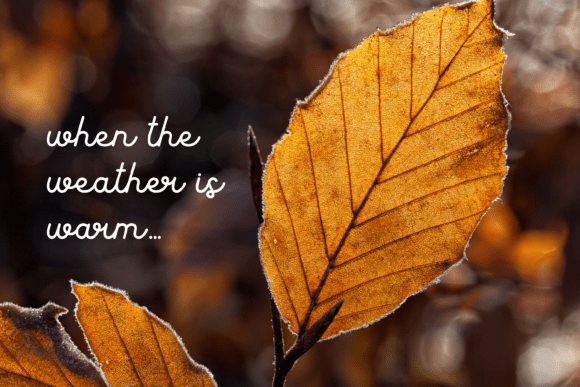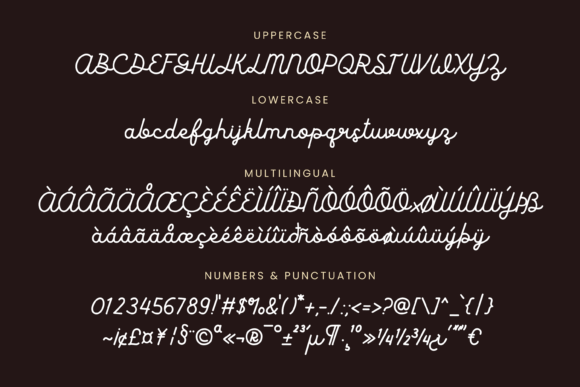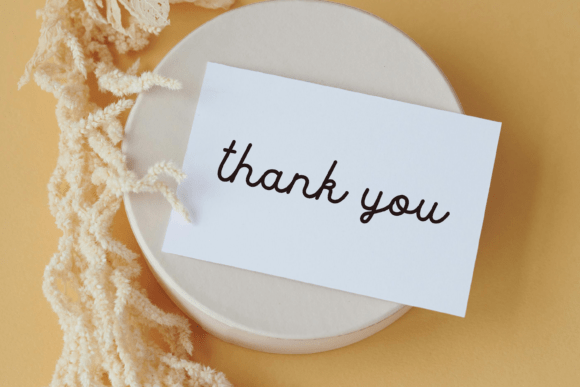
Discover the Charm of Hari Kamis Font: Elevate Your Design with a Breezy, Casual Script
In the world of typography, few fonts manage to capture the essence of a warm, relaxing atmosphere as effortlessly as the Hari Kamis font. This beautiful, casual script typeface is designed to evoke the feeling of a serene sunset, bringing a sense of calm and approachability to any design project. Whether you’re a designer looking for the perfect font for your lifestyle blog, a photographer seeking a stylish overlay for your travel photos, or a crafty entrepreneur aiming to create a warm and inviting brand identity, Hari Kamis is an excellent choice.
The Characteristics of Hari Kamis Font
So, what makes Hari Kamis font stand out from the crowd? For starters, its connected, monolinear strokes give it a fluid, dynamic feel that’s reminiscent of a quick, stylish signature or an informal note. Each glyph in the Hari Kamis font is crafted with a friendly, unpretentious flow that makes it feel incredibly accessible and modern. This is a font that doesn’t take itself too seriously, and that’s precisely what makes it so charming.
Another notable feature of Hari Kamis is its versatility. This font thrives in a variety of design contexts, from minimalist layouts with plenty of white space to golden-hour photography. It’s the perfect choice for adding a touch of elegance to social media quotes, personalized stationery, or small business logos. The Hari Kamis typeface has a way of elevating your design without overwhelming the visual composition, making it an excellent addition to any creative toolkit.
Ideal Applications for Hari Kamis Font
Given its breezy, casual nature, Hari Kamis font is particularly well-suited for certain design applications. Here are a few ideas to get you started:
- Lifestyle Blogs: Add a touch of warmth and approachability to your blog with Hari Kamis font. Its relaxed energy is perfect for bloggers who focus on topics like wellness, travel, or home decor.
- Travel Photography Overlays: Use Hari Kamis font to add a stylish, organic feel to your travel photos. Its connected strokes and friendly flow make it an excellent choice for overlaying captions or quotes on your images.
- Organic Product Branding: If you’re looking for a font that conveys a sense of simplicity and warmth, Hari Kamis is an excellent choice. It’s perfect for branding products that are natural, eco-friendly, or handmade.
- Social Media Quotes: Add a touch of elegance to your social media quotes with Hari Kamis font. Its understated yet eye-catching design makes it perfect for sharing inspirational quotes, fun facts, or behind-the-scenes insights.
- Personalized Stationery: Use Hari Kamis font to create beautiful, personalized stationery that’s perfect for letters, cards, or gift tags.
- Small Business Logos: If you’re looking for a font that conveys a sense of warmth and approachability, Hari Kamis is an excellent choice. It’s perfect for small businesses that want to establish a friendly, inviting brand identity.
Why Choose Hari Kamis Font?
So, why should you choose Hari Kamis font for your next design project? Here are just a few reasons:
- Unique and Memorable: Hari Kamis font has a unique, memorable design that’s sure to stand out from the crowd.
- Versatile: This font is incredibly versatile, making it suitable for a wide range of design applications.
- Easy to Read: Despite its casual nature, Hari Kamis font is incredibly easy to read, even at small sizes.
- Modern and Fresh: Hari Kamis font has a modern, fresh feel that’s perfect for designers who want to create a contemporary look.
In conclusion, Hari Kamis font is a beautiful, breezy script typeface that’s perfect for designers and crafters who want to add a touch of warmth and simplicity to their designs. Its connected strokes, friendly flow, and versatile nature make it an excellent choice for a wide range of design applications. Whether you’re working on a lifestyle blog, travel photography overlay, or small business logo, Hari Kamis font is sure to elevate your design and leave a lasting impression on your audience.
| Font Name | Hari Kamis Font |
| Author | hai.starin |